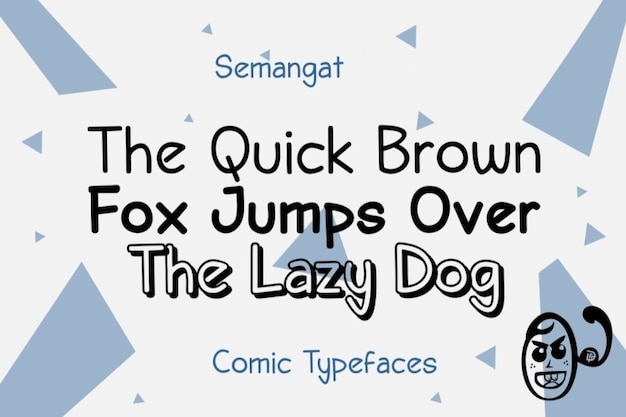
Semangat Font
Dive into the whimsical world of Semangat, where creativity and humor collide in a playful dance of letters. This comic-inspired font injects a burst of fun into your projects, making every word a delightful visual experience. With its quirky shapes and imaginative design, Semangat brings a lighthearted touch to your creations, whether you're crafting comics, designing invitations, or adding a splash of humor to your branding. The letters dance with a unique rhythm, creating a sense of joy and playfulness. Embrace the creative spirit with Semangat and turn your words into a laughter-filled adventure.